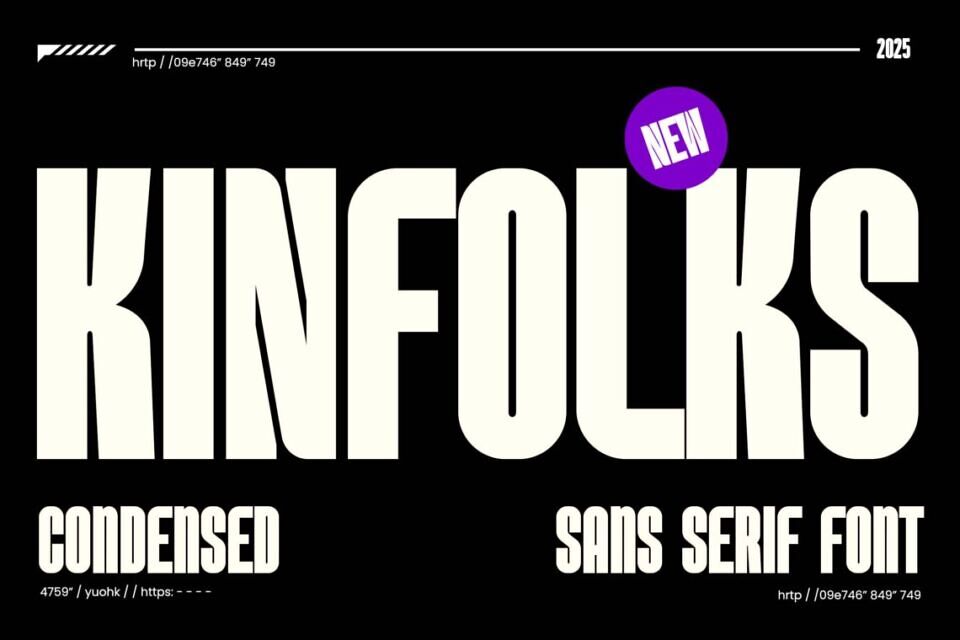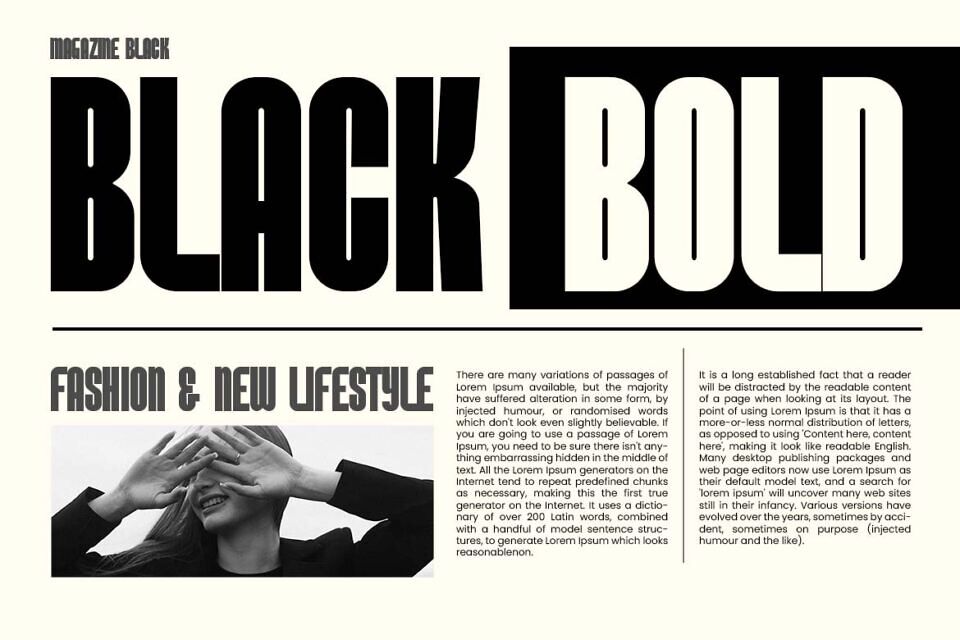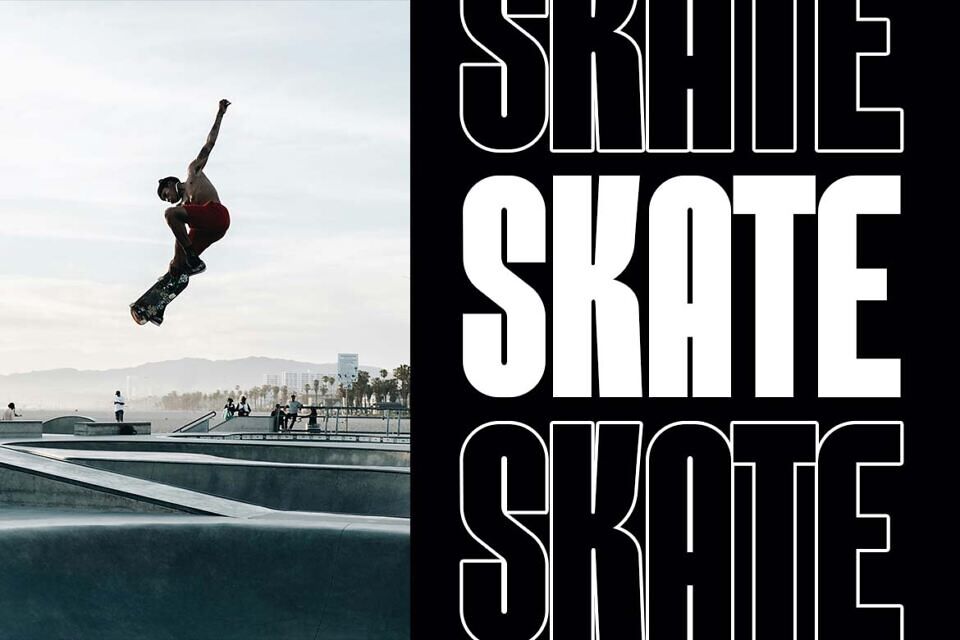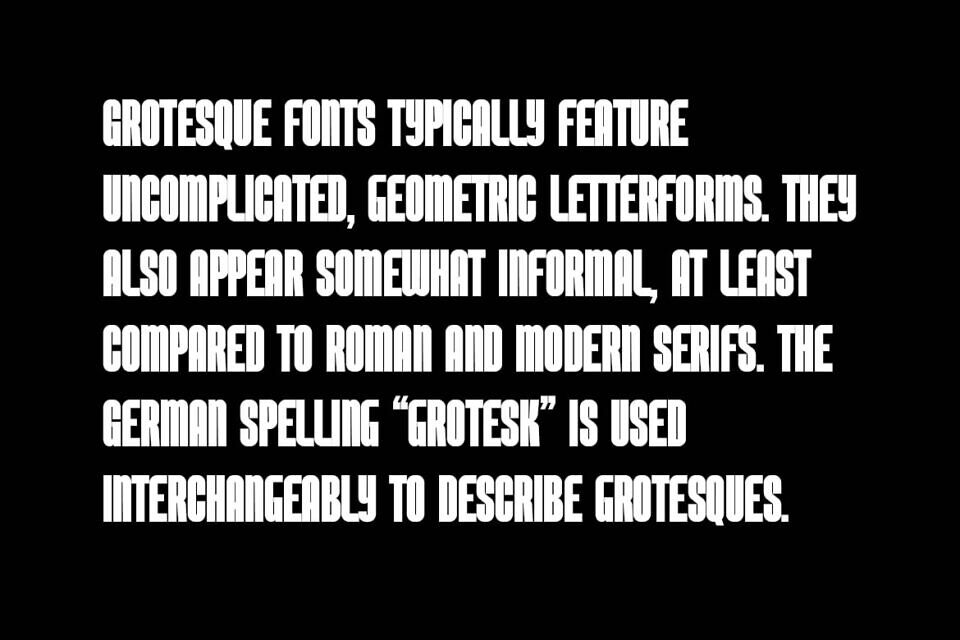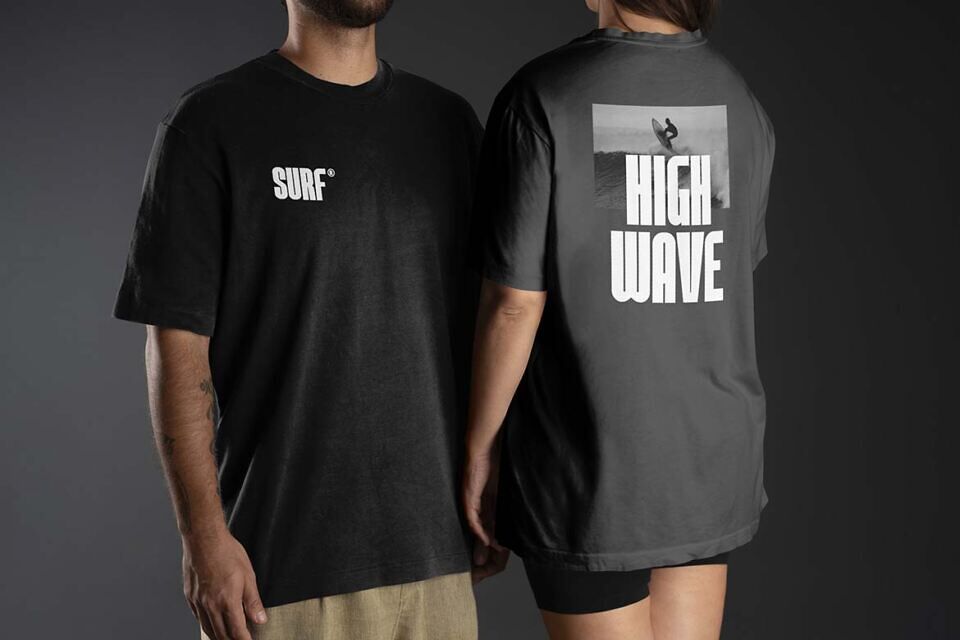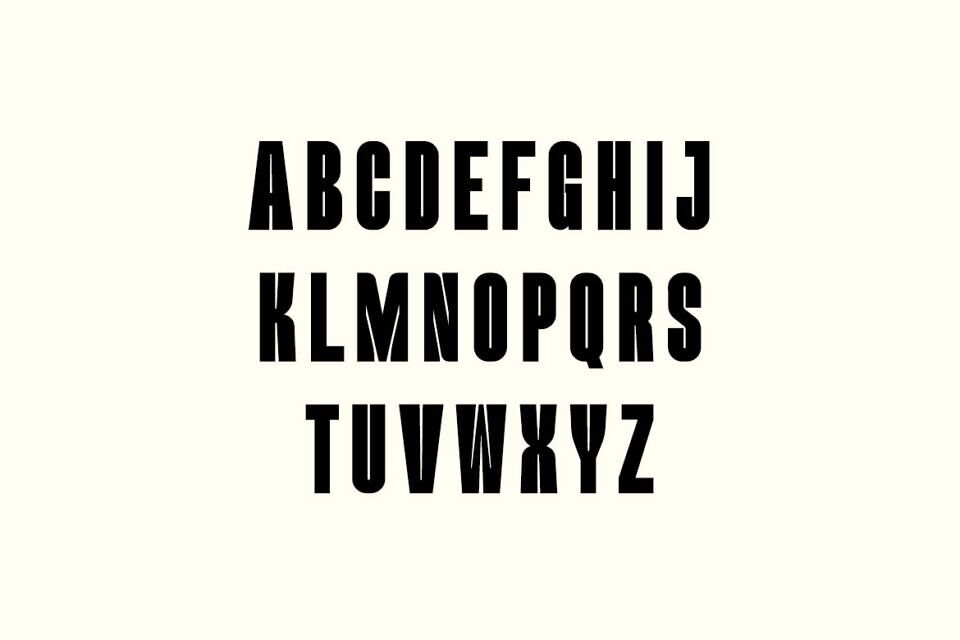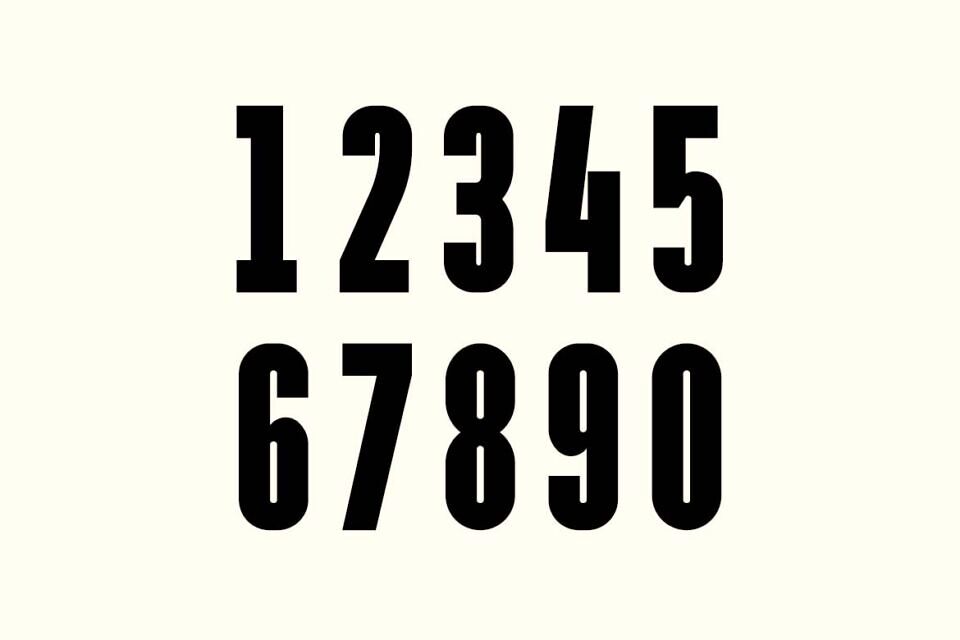
Kinfolks Font
Kinfolks is a condensed Sans Serif Font by UI Creative. The modern display font feels beautiful classy, elegant, and stylish. This font is ideally suited for a wide variety of projects, such as signature, stationery, logo, wedding, typography quotes, magazine or book covers, website headers, branding, and more. Also, fashion-related branding or editorial design displays both masculine and feminine qualities.